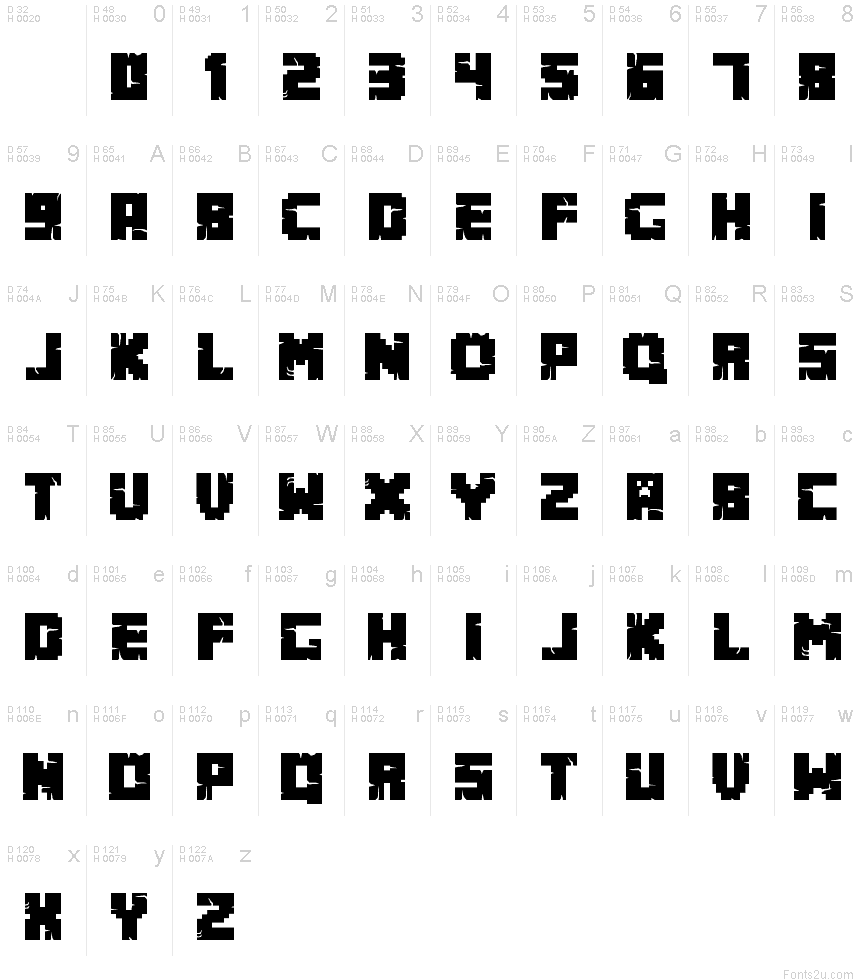
Minecrafter Alt
Based on the popular indie game "Minecraft", this font is inspired by the main game logo with alternate Cracked version included and a selection of Minecon characters as well.